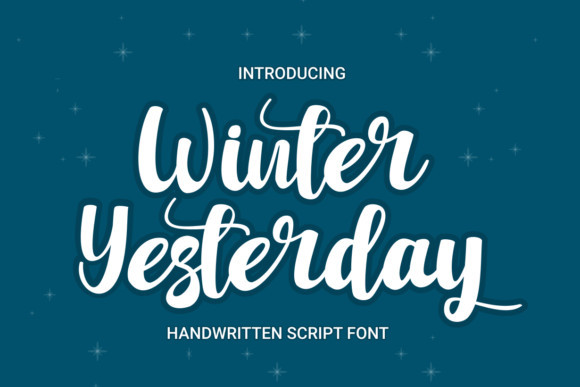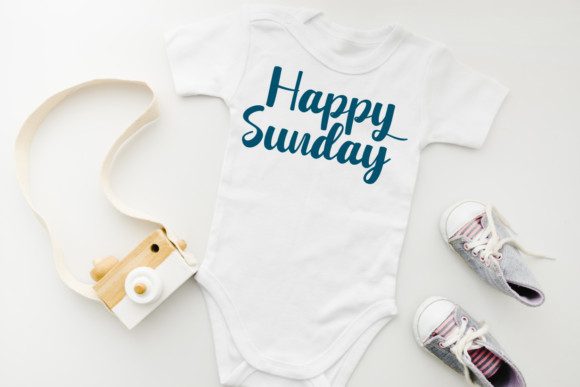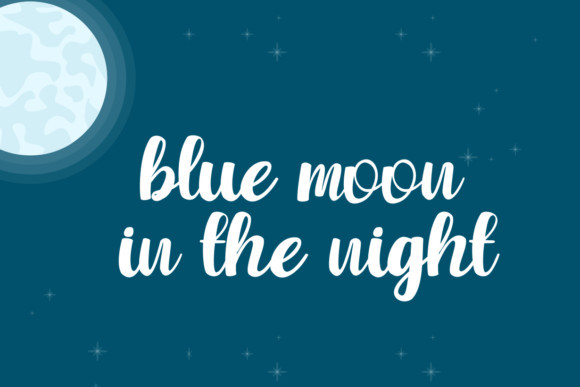
Winter Yesterday Font
Winter Yesterday is a delicate and elegant handwritten font. Its distinct and well rounded letters make this font a masterpiece. Fall in love with its incredibly versatile style and use it to create spectacular designs!